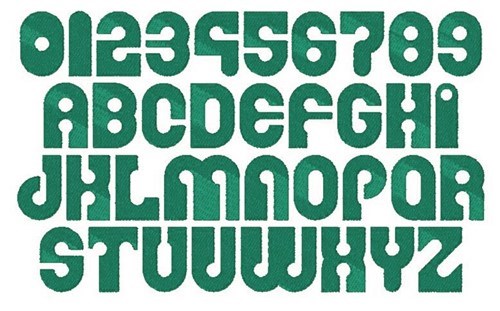
Unicorn Creatives is happy to present Uno Dos Tres Embrilliance Embroidery Font - Bold Block Applique Lettering - BX font machine embroidery font which has Bold block applique embroidery font ideal for playful designs on jackets, totes, and festive decorations. Available in BX font and Embrilliance format. included. If you would like to view more embroidery fonts and alphabets please search our embroidery fonts page.
Uno Dos Tres Embrilliance Embroidery Font - Bold Block Applique Lettering - BX font